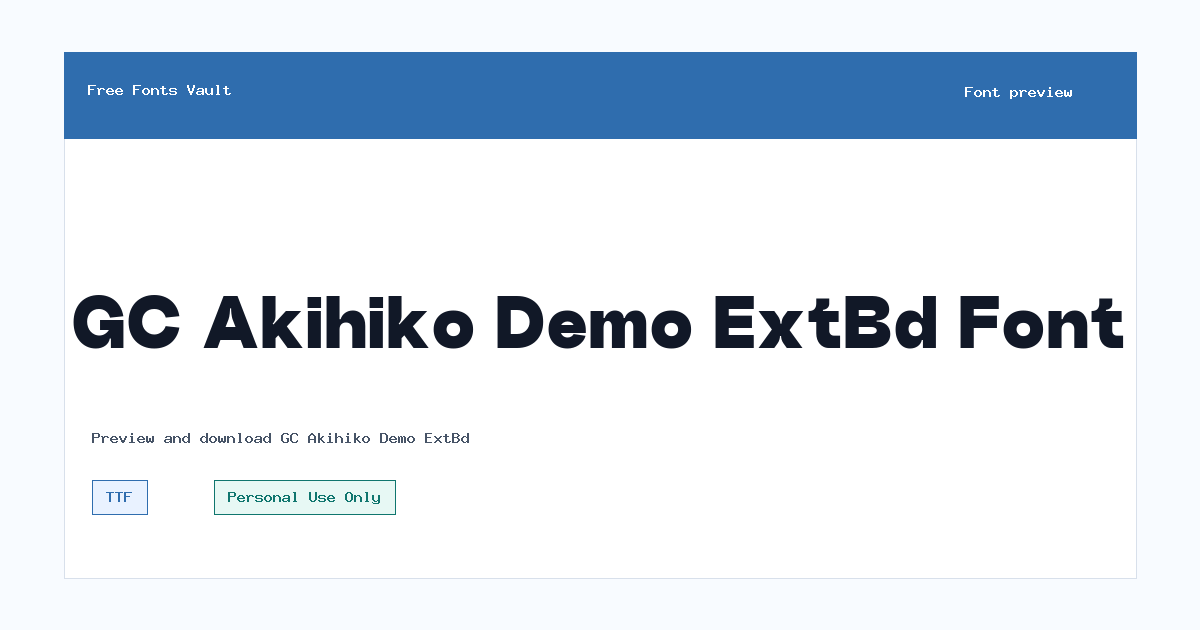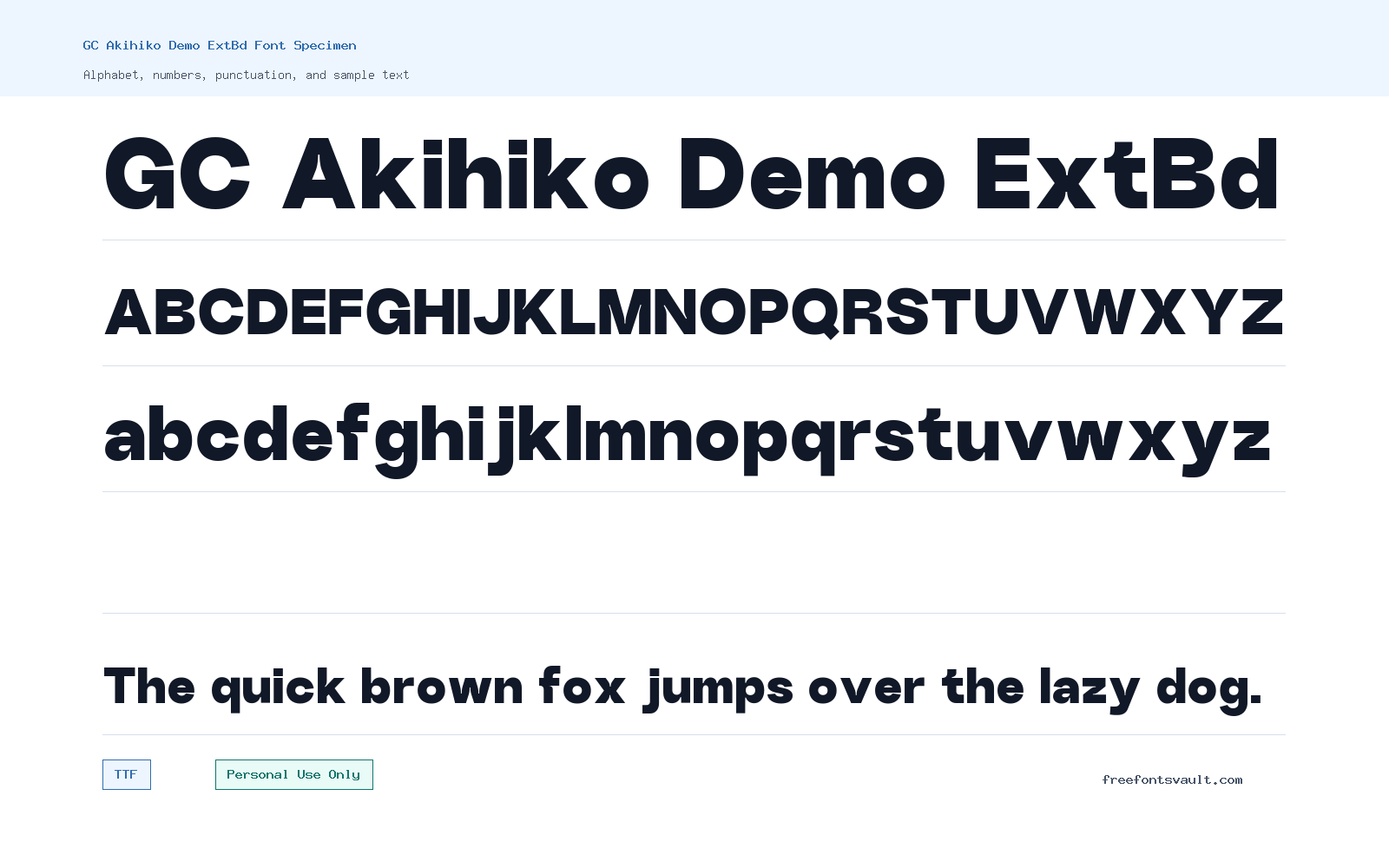
GC Akihiko Demo ExtBd
- Designer Laila Nuzul Maghfiroh of Glyphonic
GC Akihiko Demo ExtBd is a demo sans serif font with an ExtraBold feel, made for short, confident text rather than long reading. Use the preview box to test names, titles, and layout ideas before downloading.
GC Akihiko Demo ExtBd is best approached as a display-focused sans serif. The ExtraBold weight gives words a strong blocky presence, so it can work well when you need a title, label, badge, poster line, or logo-style mockup to stand out quickly. Because the listed file is a TTF font, it should be easy to test in many common design apps after installation. The family name suggests a demo cut, so it is better to treat it as a trial or personal-project font unless you have a separate license from the creator or foundry.
For design work, start with short text. Try one-word marks, uppercase headings, product-style labels, social graphics, event posters, YouTube thumbnail text, and website hero mockups. ExtraBold sans serif fonts can look clean and direct at large sizes, but they often become heavy when used for paragraphs. If your layout needs body copy, pair GC Akihiko Demo ExtBd with a lighter, simpler sans serif or a readable serif and let this font handle only the headline. In logo work, it can be useful for personal concepts and early exploration, but do not use it for a client, brand, product, merchandise, app, or monetized project unless the license you hold clearly allows that use.
- ExtraBold-style sans serif design suited to short display text, titles, and bold layout accents.
- Normal style with a listed 700 font weight, making it a strong heading choice rather than a light text face.
- Works best when tested at larger sizes where heavy letterforms have enough space to breathe.
- Poster headlines and event title mockups
- Personal logo concepts and brand exploration drafts
- Social media graphics, banners, and thumbnail text
- Website hero section mockups and landing page headings
- Packaging-style layout tests for non-commercial concepts
- Strong labels, badges, and short callout text
The designer is listed as Laila Nuzul Maghfiroh of Glyphonic, with Glyphonic listed as the foundry.
What kind of font is GC Akihiko Demo ExtBd?
It is listed as a sans serif font, with a normal style and a 700 weight. The name also indicates an ExtraBold demo style.
Is this font good for body text?
It is better for short display text. ExtraBold sans serif fonts can feel too dense in paragraphs, so use a lighter companion font for longer reading.
What fonts pair well with GC Akihiko Demo ExtBd?
Pair it with a neutral sans serif or a readable serif in a lighter weight. Keep the companion font simple so the bold heading does not compete with the rest of the layout.